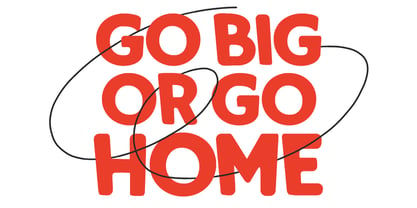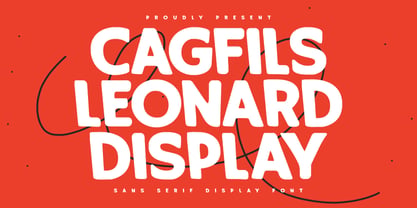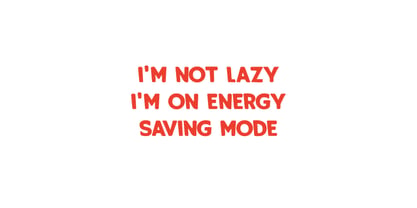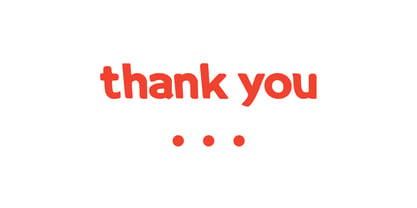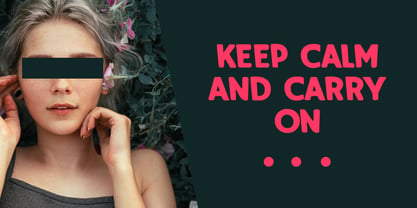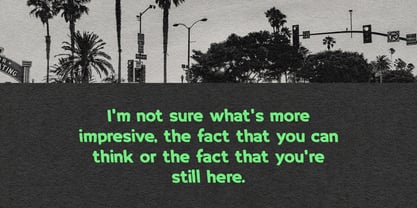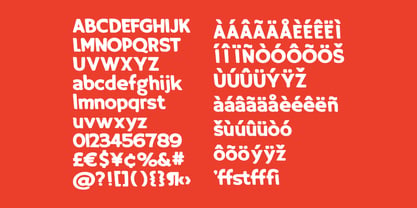
MC Cagfils Leonard
por Maulana Creative
La familia tipográfica MC Cagfils Leonard fue diseñada por Gilang Maulana y publicada por Maulana Creative. MC Cagfils Leonard contiene 1 estilos. Más información sobre esta familia
Cagfils Leonard is a sans serif rounded display font. Decorative font, fun character with a bit of ligatures. To give you an extra creative work. Cagfils Leonard font support multilingual more than 100+ language. This font is good for logo design, Social media, Movie Titles, Books Titles, a short text even a long text letter and good for your secondary text font with script or serif. Make a stunning work with Cagfils Leonard font.
Diseñadores: Gilang Maulana
Fundición: Maulana Creative